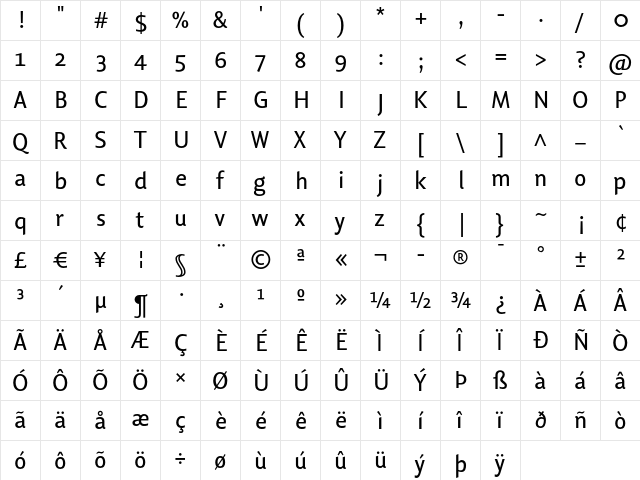
Lisboa OSF Regular
Design Context for Lisboa OSF Typeface
Lisboa OSF takes a measured approach to typography — its balanced proportions and neutral character make it a reliable workhorse for both digital and print work.